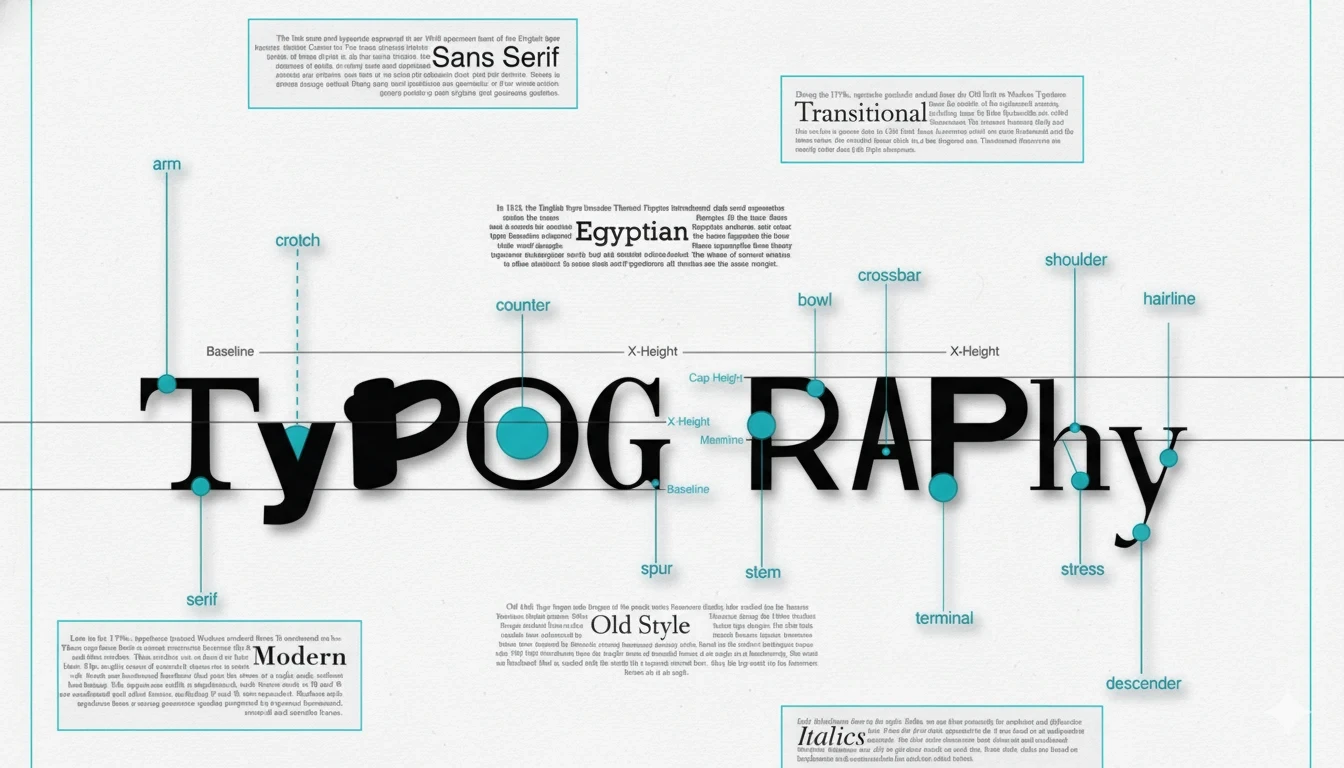
Let’s Talk Type: A Guide to Fonts and How They Shape Design
Typography is one of those design things people notice without realizing they’re noticing it. A headline can feel elegant, loud, calm, modern, vintage, expensive, playful — all before you even read the words. That’s the power of type.
When I first started paying attention to fonts seriously, I thought typography was mostly about “making text look nice.” But once you work on websites, logos, packaging, Pinterest graphics, or even simple blog layouts, you start seeing how much fonts control the mood of a design. A bad font choice can make a polished design feel amateur in seconds. A good one quietly makes everything feel intentional.
This guide breaks down the basics of typography in a practical, easy-to-follow way without turning it into a design textbook.
A Quick Look at Type History
Typography has been around much longer than digital design. Long before Canva templates and Google Fonts, type was literally physical. Printers arranged metal letters by hand for books, newspapers, and posters.
A lot of today’s font styles still come from those early printing traditions.
Serif fonts, for example, trace back to Roman inscriptions and printed books. Sans serifs became more popular later when modern advertising and minimalist design started taking over. Then digital design changed everything again. Suddenly thousands of fonts became accessible to anyone with a laptop.
What’s interesting is how trends cycle. Fonts that felt outdated ten years ago suddenly show up everywhere again. Right now you’ll see a lot of retro serifs, soft sans serifs, and handwritten styles coming back into branding.
You can usually tell what era inspired a design just from the typography alone.
The Main Kinds of Fonts
Serif Fonts
Serif fonts have small decorative strokes at the ends of letters. Think of fonts commonly used in books, newspapers, or luxury branding.
They often feel:
- Traditional
- Elegant
- Trustworthy
- Editorial
Some serifs feel formal and refined, while others feel soft and modern. That’s why serif fonts work well for everything from fashion brands to long-form reading.
I still think a good serif headline instantly adds authority to a website. Especially for blogs or product packaging.
Popular examples include:
- Times New Roman
- Garamond
- Baskerville
Sans Serif Fonts
Sans serif fonts don’t have those decorative strokes. They usually look cleaner and more modern.
You’ll see them everywhere in:
- Apps
- Websites
- Tech branding
- UI design
- Social media graphics
A lot of newer creators default to sans serifs because they’re easier to use well. They’re flexible and usually readable even at smaller sizes.
Some can feel very neutral though. If you’ve ever looked at a startup website and thought “this looks like every SaaS company,” the font probably played a role.
Common examples:
- Helvetica
- Futura
- Inter
- Arial
Script Fonts
Script fonts imitate handwriting or calligraphy.
Some are elegant and flowing. Others feel casual and hand-drawn.
They work well for:
- Invitations
- Beauty brands
- Packaging
- Signature logos
- Pinterest graphics
But readability matters a lot here. A script font may look beautiful in a logo but become frustrating in paragraphs.
One thing I learned the hard way: many beginners overuse script fonts because they look “fancy.” Usually they work best in small doses.
Display Fonts
Display fonts are designed to stand out.
These are the fonts you use for:
- Posters
- Big headlines
- Logos
- Packaging titles
- YouTube thumbnails
Some are quirky. Some are loud. Some are extremely stylized.
They’re fun, but easy to misuse. I’ve seen display fonts completely overpower otherwise clean designs. Usually the best approach is pairing them with a simpler secondary font.
Monospace Fonts
Monospace fonts give every character the same width.
They’re associated with:
- Coding
- Terminal interfaces
- Retro tech aesthetics
You’ll often see them in developer tools or futuristic branding.
They’re not always the most readable for long paragraphs, but they add personality in the right context.
Understanding how fonts are grouped helps designers pick the right feeling and balance looking good with being easy to read. When you know the different types of fonts, you can mix and match to convey different feelings.
Font Things and How They Look
Typography isn’t only about picking a font family. Tiny details matter more than most people expect.
Weight
Font weight changes how bold or light text feels.
A thin font can feel elegant. A heavy bold font feels confident and loud.
Sometimes simply changing a heading from Regular to SemiBold improves a design more than switching fonts entirely.
Kerning
Kerning controls the spacing between letters.
Bad kerning is one of those things people don’t consciously identify, but they feel it when something looks awkward.
Luxury brands usually pay close attention to spacing. That polished look often comes from careful typography adjustments rather than complicated graphics.
Line Height
Line spacing affects readability more than many beginners realize.
Text that’s too tight feels cramped. Too loose and everything feels disconnected.
For blog content especially, comfortable spacing makes people stay longer on the page. I notice this immediately on sites with dense paragraphs — they feel exhausting before I even start reading.
Alignment
Alignment changes the structure and rhythm of a layout.
- Left-aligned text feels natural and readable
- Centered text feels formal or decorative
- Justified text can look editorial but sometimes creates awkward spacing
Most websites stick to left alignment for good reason.
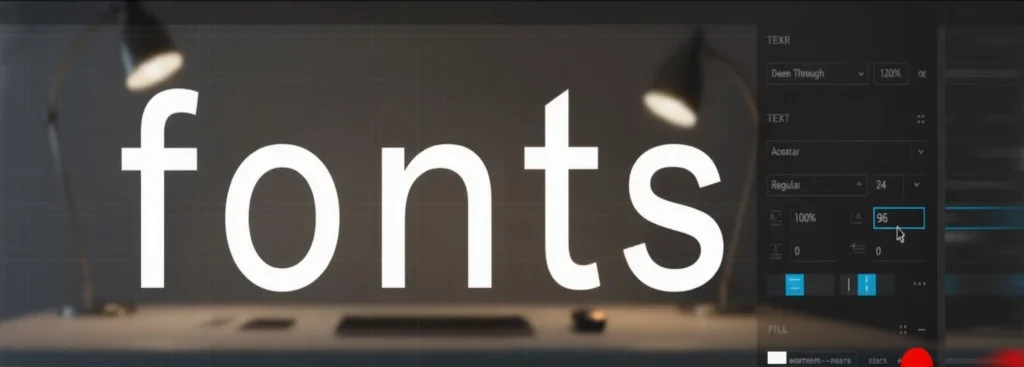
Why Hierarchy and Readability Matter
Typography guides people through content.
Without hierarchy, everything blends together.
Good typography helps readers instantly understand:
- What’s important
- What’s clickable
- What’s a heading
- What’s supporting information
This matters even more on mobile. Large text blocks without spacing or clear headings are hard to scan.
One thing I’ve noticed while working on blog layouts: readers rarely consume content line by line anymore. Most people scan first. Typography helps control that scanning behavior.
A clean heading structure can make an average article feel easier to read.
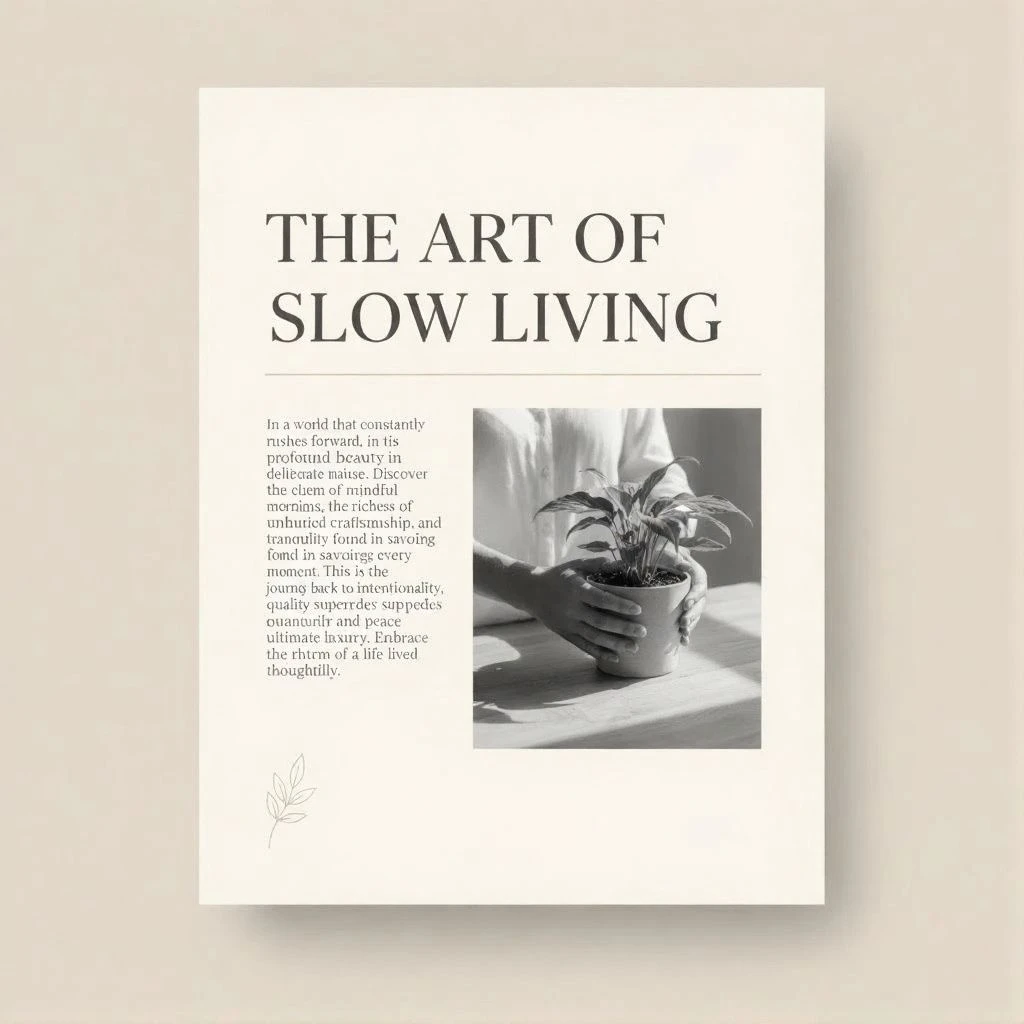
Once you understand how fonts shape design, you might find yourself needing to identify a captivating typeface from an image. Luckily, there are several effective methods for How to Identify Fonts From Images in Seconds (8 Methods).
How to Pick Fonts and Put Them Together
Picking fonts gets easier once you stop searching for “perfect” fonts and start focusing on mood and function.
I usually ask:
- What feeling should this design create?
- Is readability more important than personality?
- Where will the font appear?
- Mobile or print?
- Long text or short headlines?
Those questions narrow things down quickly.
Understanding how different typefaces convey specific feelings is key, especially when you're looking to make a high-end impression with your branding, such as with these 15 Fonts for Luxury Beauty Brand Logos That Instantly Elevate Your Brand.
What Typography Does in Design
Typography is a key part of visual design and how a brand looks. The right font can make a product feel expensive, young, or cutting-edge. It tells you the feeling, makes you trust it, and makes the user experience better.
When the design is on websites etc, typography says how easy it is to access, how easy it is to read, and how the design flows.
Where to Find Fonts
Now, designers have a lot of free and paid fonts they can get from places like Google Fonts, Adobe Fonts, and professional font places such as TypeType. Before getting a font, always read the rules about how you can use it, especially if you're using it for business.
Font Resources
Here are some trusted font libraries and marketplaces to explore high-quality typefaces for your next project:
- Fontiverse— a curated platform featuring unique and trending modern fonts from independent designers.
- TypeType Fonts — premium foundry known for versatile geometric and humanist typefaces.
- Google Fonts — the go-to source for free web-optimized fonts with global language support.
- Adobe Fonts — professional library seamlessly integrated with Creative Cloud.
- Fontshare — free and open-source fonts for web and print, perfect for startups and creatives.
- Creative Fabrica — a creative marketplace with thousands of fonts, graphics, and design assets, ideal for commercial projects and print-on-demand work.
Each of these platforms offers previews, pairing suggestions, and licensing details — helping designers choose fonts that balance readability, aesthetics, and brand identity.
FAQ — Common Questions About Typography
What is typography in design?
Typography is the art and technique of arranging text to make it readable, visually appealing, and effective in communication.
What are the main types of fonts?
The five main types of fonts are:u003cbru003eu003cstrongu003eSerifu003c/strongu003e – traditional and classicu003cbru003eu003cstrongu003eSans-serifu003c/strongu003e – clean and modernu003cbru003eu003cstrongu003eSlab serifu003c/strongu003e – bold and geometricu003cbru003eu003cstrongu003eScriptu003c/strongu003e – handwritten and elegantu003cbru003eu003cstrongu003eDisplayu003c/strongu003e – decorative and expressiveu003cbru003eEach category creates a unique tone and emotional impression.
What’s the difference between typeface and font?
A typeface refers to the overall design (like Helvetica or Garamond), while a font is a specific style and weight within that family (e.g., Helvetica Bold 16pt).u003cbru003eThink of a typeface as a family, and fonts as its individual members.
In short
Typography is more than just letters on a page. It's a way of speaking through how things look and how they work. If you understand the basics of type, font, and design, you can make visuals that are easy to read and make people feel something.
So, next time you pick a font, think about the story it tells. Because every letter has a voice. Think about the overall message of the design, and then find a font that matches that message.